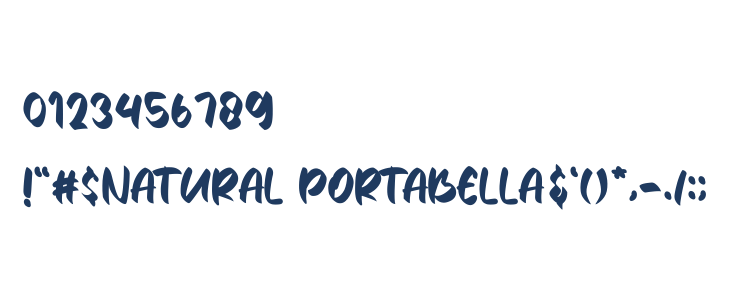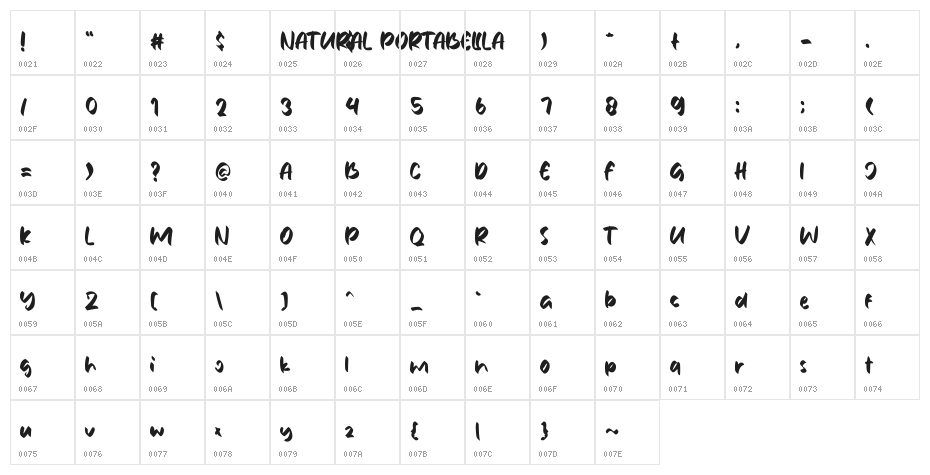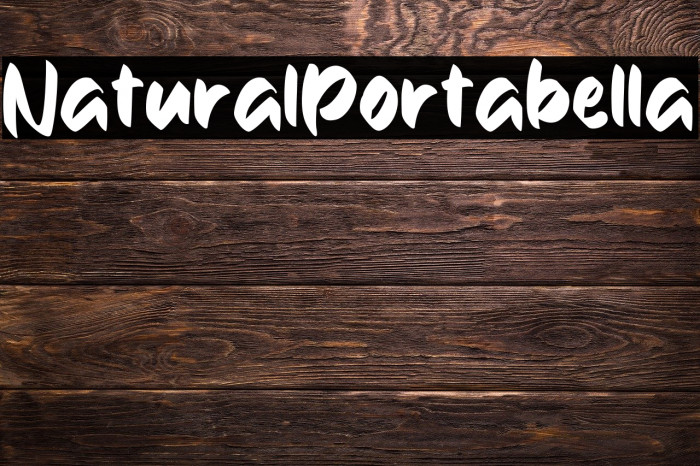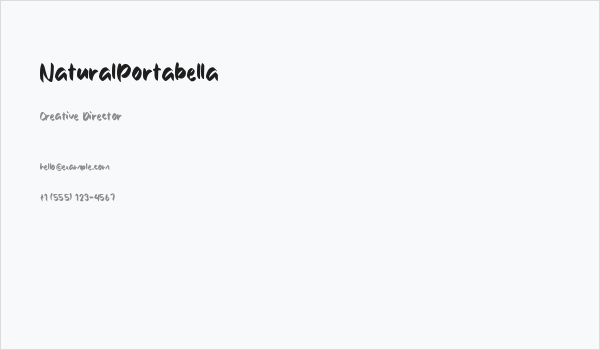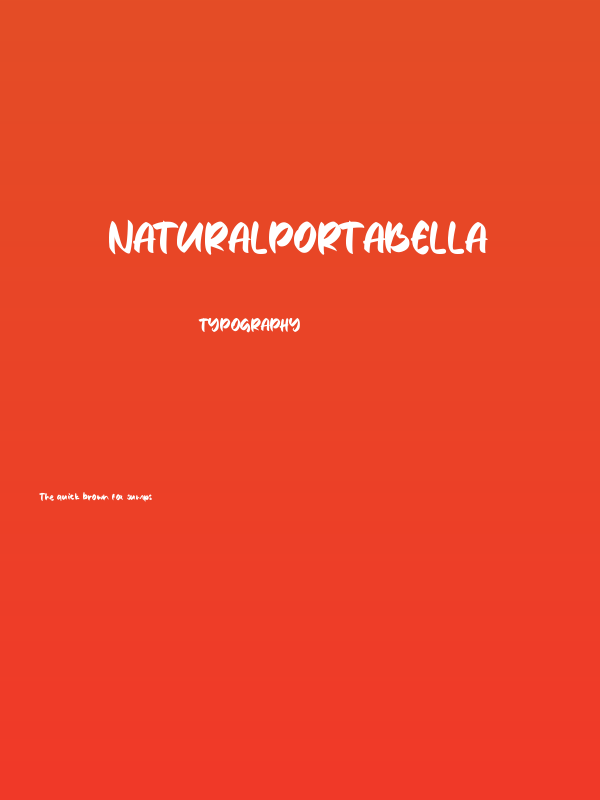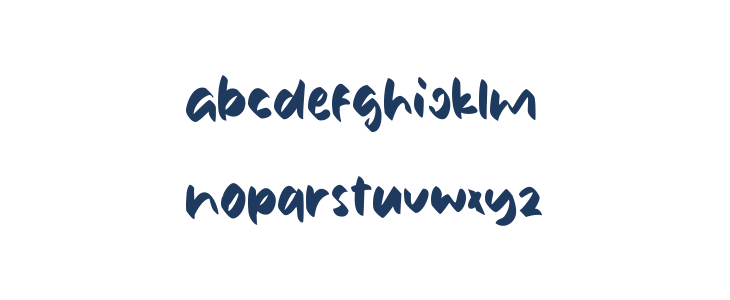
NaturalPortabella Font
NaturalPortabella Description
This font exhibits a bold, handwritten style with a playful and informal character. The strokes are thick and have a brush-like texture, giving it a dynamic and energetic appearance. The letters are slightly slanted, adding to the casual feel, while maintaining legibility. The uppercase and lowercase letters are well-proportioned, and the numbers follow the same stylistic cues. Special characters are included, matching the overall aesthetic. This font is ideal for projects that require a personal touch or a creative flair.
| Proposed Projects | Ideal for greeting cards, posters, branding projects, and social media graphics. |